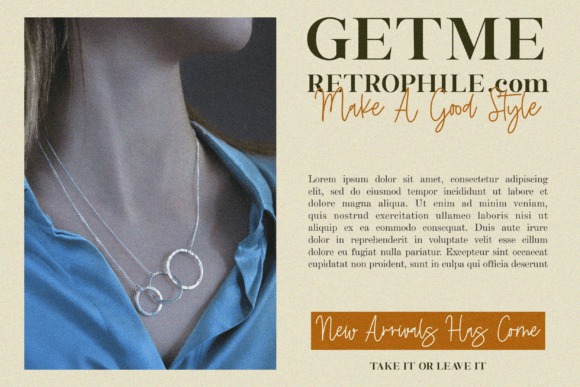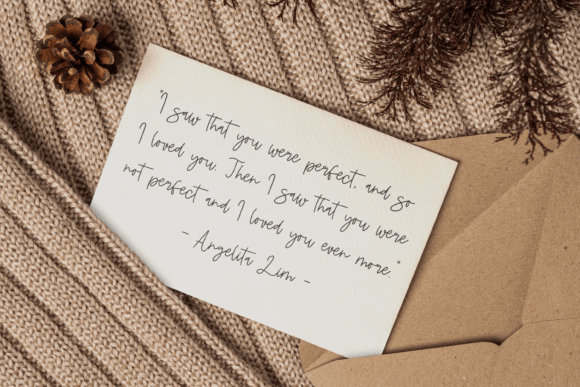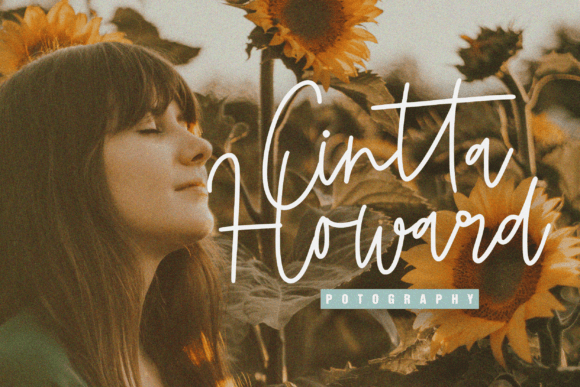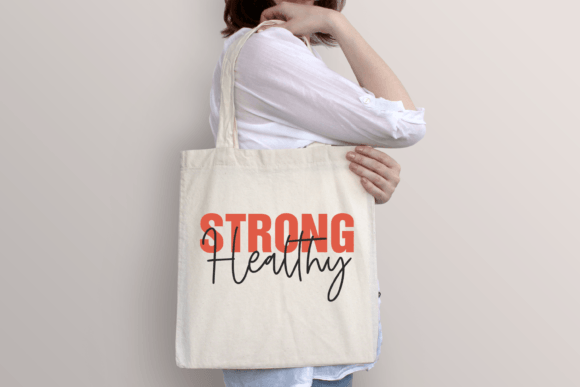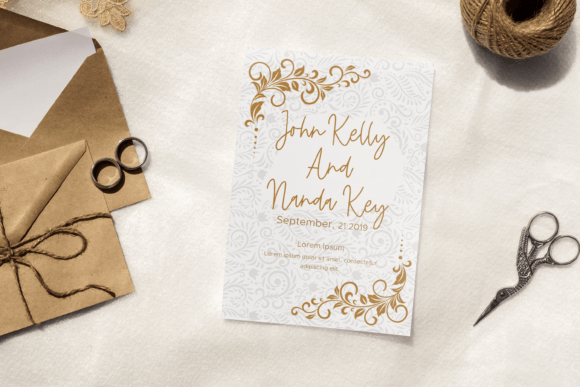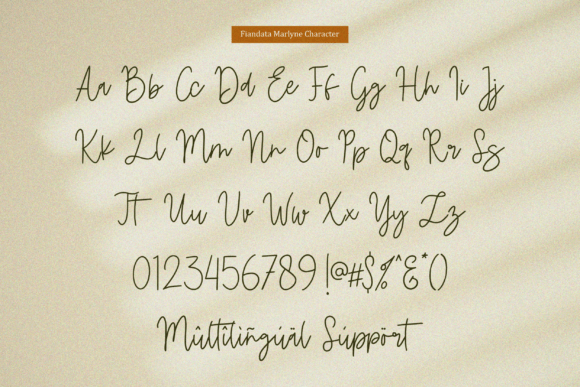
Introduction to Fiandata Marlyne Font
Have you ever stared at a blank page, waiting for the perfect font to bring your creative project to life? That’s exactly what happened to me when I first laid eyes on Fiandata Marlyne Font. Its elegant, monoline design instantly caught my attention, and I knew I had to dive deeper.
Fiandata Marlyne Font is more than just a pretty face – it’s a versatile design resource that’s perfect for a wide range of creative projects, from product packaging and branding to magazines and social media. With its high-quality design and transparent background, this font is a valuable addition to any designer’s toolkit.
Key Features of Fiandata Marlyne Font
- High-quality font design for creative projects, offering a unique and elegant aesthetic.
- Transparent background, allowing for seamless integration into various design elements.
- Includes multiple font styles and weights, providing versatility for various design applications.
- Designed with high resolution in mind, ensuring crisp and clear display on high-resolution screens.
- Perfect for use in graphic design, digital art, and other creative projects that require a sophisticated and stylish font.
Honest Review: Fiandata Marlyne Font
I recently had the chance to work with the Fiandata Marlyne Font for a creative project and I must say, it’s been a delightful experience. The font is a high-quality design resource that offers a lot of versatility for any project.
What works well: ✨ The font comes with a transparent background option, which makes it easy to work with and customize. It’s also available for free download, which is a huge plus for designers on a budget. The font is also highly legible, making it perfect for body text and headings.
Some things to consider: ⚠️ The font is only available in a few weights, which might limit its usage in certain design projects. Additionally, the font’s uniqueness can be a double-edged sword – while it’s great for creative projects, it might not be the best choice for more traditional or corporate designs.
Overall, I’m impressed with the Fiandata Marlyne Font and would definitely recommend it to designers looking for a high-quality, free design resource. Just be mindful of its limitations and use it in the right context.
- Only available in a few weights
Fiandata Marlyne Font
Tips for Getting the Most Out of Fiandata Marlyne Font
For optimal results, use the Fiandata Marlyne Font in conjunction with a transparent background to create visually appealing designs. Additionally, experiment with different font sizes and styles to find the perfect combination for your creative project.
The Fiandata Marlyne Font is commonly used in graphic design, digital art, and creative writing projects. Its high-quality features make it an ideal choice for designers seeking a professional look and feel for their designs.